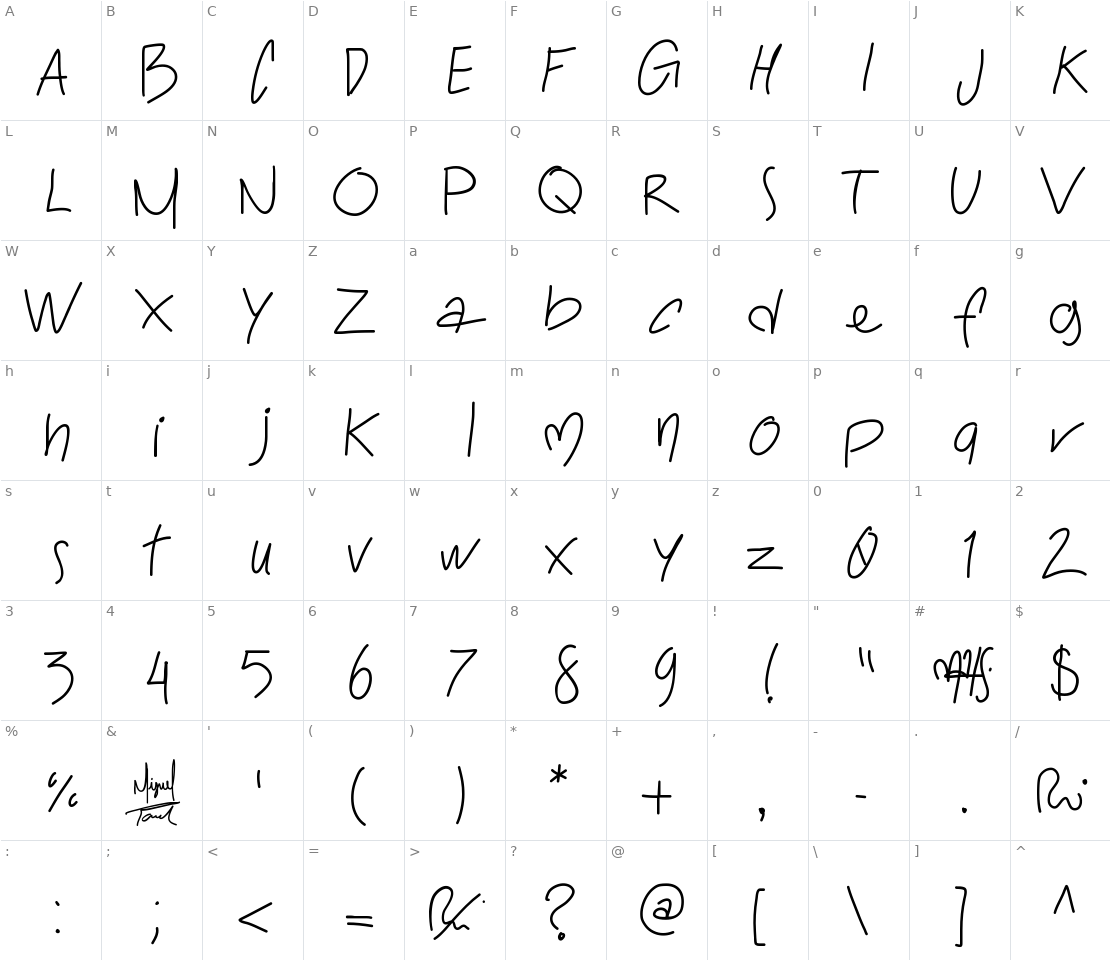
Toralfont Classic
Toralfont Classic is a light, casual handwritten face from Mats Foundry that reads like neat everyday penmanship, the kind of handwriting that's actually easy to follow. The thin strokes keep things airy and unforced, with enough consistency to stay legible across longer passages. A natural pick for personal branding, correspondence, journals, or anywhere you want type that feels genuinely human without sacrificing clarity.